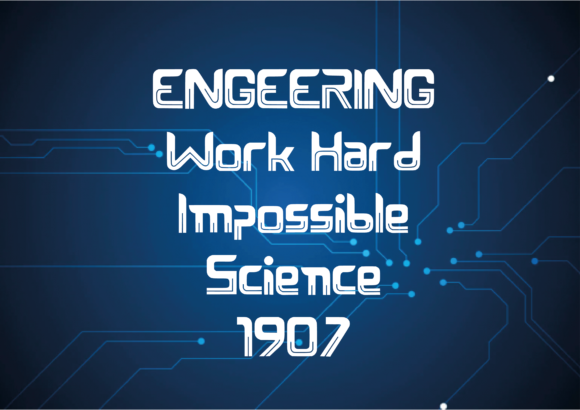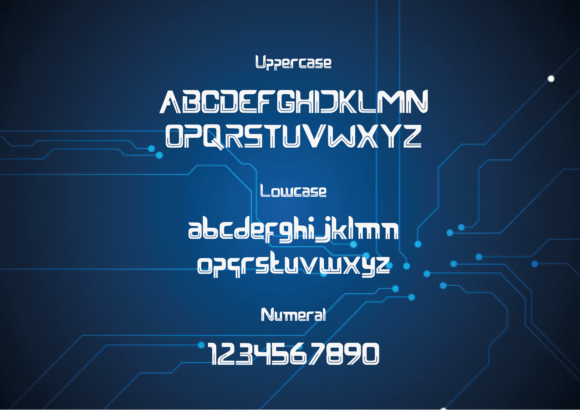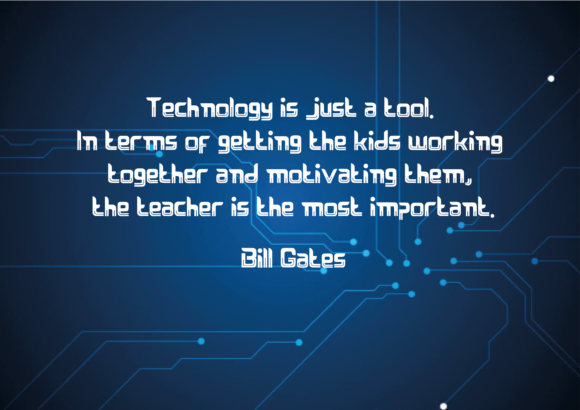
Introduction to Reison Font Font
Fonts play a crucial role in design, and the Reison Font font is a typeface that brings both character and versatility to any project. Whether you’re working on a branding project, a website, or a print design, the Reison Font font offers a unique style that can elevate your work.
Reison is a great display font.
Its unique look makes it appear wonderfully down-to-earth, readable and, ultimately, incredibly versatile Reison will look outstanding in any context, whether itβs being used on busy backgrounds or as a standalone headline.
Key Features of Reison Font Font
Why Choose Reison Font Font?
The Reison Font font is more than just a typeface β it’s a design tool that helps you communicate your message with style and clarity. Its unique character set and versatile design make it suitable for a wide range of applications, from elegant invitations to bold headlines.
With its carefully crafted letterforms and balanced proportions, the Reison Font font ensures readability and visual appeal across all mediums.
What makes Reison Font font special?
The Reison Font font stands out with its unique design, exceptional readability, and versatility across various design applications.